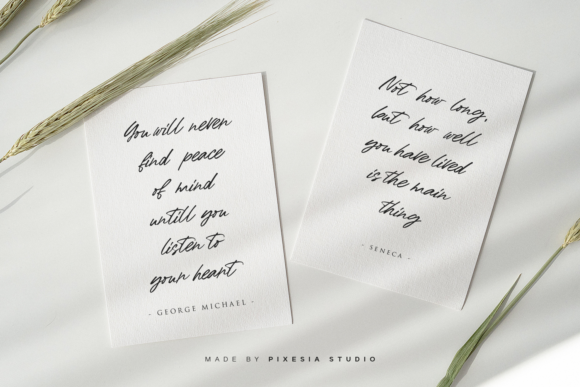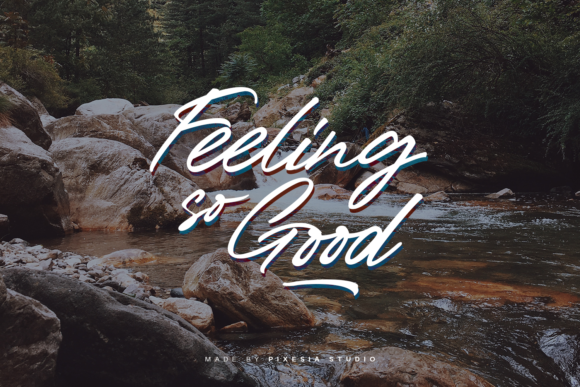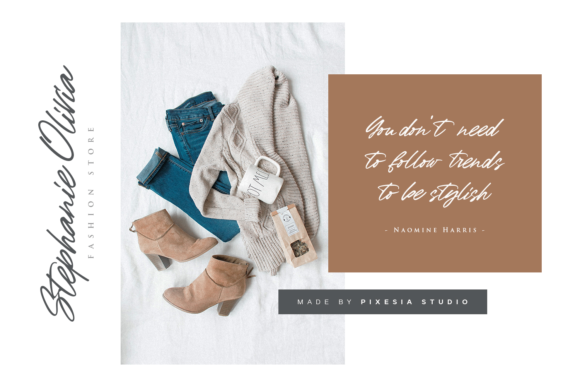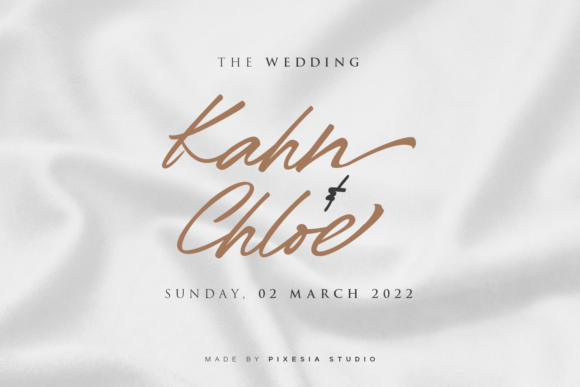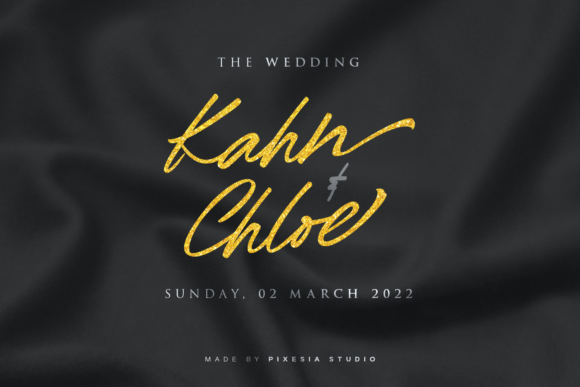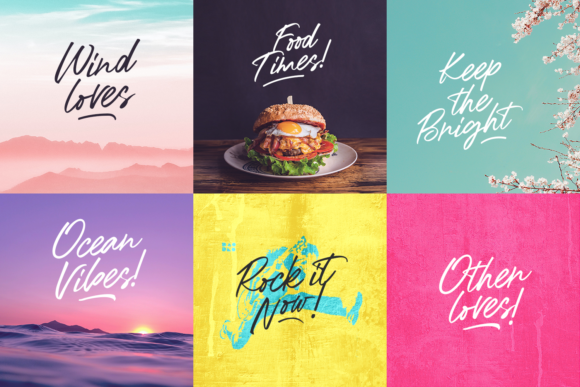
Discover the Elegance of Barlouth Font: A Lovely and Delicate Script Font
Are you looking for a font that exudes elegance and class? Look no further than Barlouth Font, a lovely and delicate script font that is perfect for adding a touch of sophistication to your designs. In this article, we’ll take a closer look at Barlouth Font, its features, and how it can elevate your design projects.
What is Barlouth Font?
Barlouth Font is a beautifully crafted script font that is designed to add a touch of elegance and refinement to your designs. With its delicate and flowing lines, Barlouth Font is perfect for creating stunning text-based designs that are sure to impress. Whether you’re a designer, crafter, or DIY enthusiast, Barlouth Font is a great addition to your font collection.
Key Features of Barlouth Font
So, what makes Barlouth Font so special? Here are some of its key features:
- Elegant and Delicate Design: Barlouth Font features a beautiful, cursive design that is both elegant and delicate. Its flowing lines and curves make it perfect for creating sophisticated text-based designs.
- High-Quality Typography: Barlouth Font is designed with high-quality typography in mind. Its clear and precise lines ensure that your text looks crisp and professional, even at small sizes.
- Versatile and Flexible: Barlouth Font is a versatile font that can be used for a wide range of design projects, from wedding invitations and stationery to branding and advertising.
- Easy to Read: Despite its elegant design, Barlouth Font is easy to read, making it perfect for body text as well as headings and titles.
Who is Barlouth Font for?
Barlouth Font is perfect for anyone who needs a beautiful and refreshing look for their designs. Here are some examples of designers and crafters who can benefit from using Barlouth Font:
- Graphic Designers: Barlouth Font is a great addition to any graphic designer’s font collection. Its elegant design and high-quality typography make it perfect for creating stunning text-based designs.
- Stationery and Card Makers: Barlouth Font is perfect for creating beautiful stationery and cards. Its delicate design and flowing lines make it ideal for wedding invitations, birthday cards, and other special occasions.
- Crafters and DIY Enthusiasts: Barlouth Font is also great for crafters and DIY enthusiasts who want to add a personal touch to their projects. Use it to create beautiful labels, signs, and other decorative items.
How to Use Barlouth Font
Using Barlouth Font is easy. Here are some tips to get you started:
- Pair it with Other Fonts: Barlouth Font looks great when paired with other fonts. Try pairing it with a bold sans-serif font for a striking contrast.
- Use it for Headings and Titles: Barlouth Font is perfect for headings and titles. Use it to add a touch of elegance to your designs.
- Experiment with Colors: Barlouth Font looks great in a variety of colors. Experiment with different colors to find the one that works best for your design.
In conclusion, Barlouth Font is a lovely and delicate script font that exudes elegance and class. Its beautiful design, high-quality typography, and versatility make it perfect for a wide range of design projects. Whether you’re a designer, crafter, or DIY enthusiast, Barlouth Font is a great addition to your font collection. So why not give it a try and see how it can elevate your designs?